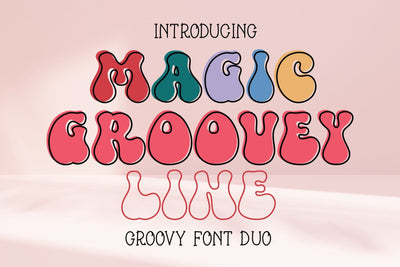
Magic Groovey and Magic Groovey Line Fonts
Magic Groovey and Magic Groovey Line It's a decorative font and Display Fonts, cute style and fun. Can be used in a variety of applications. Fall in love with its authentic feel and use it to create gorgeous invitations, beautiful stationary art, eye-catching social media posts, and cute greeting cards. Add it now to your fonts library , and start creating spectacular designs!